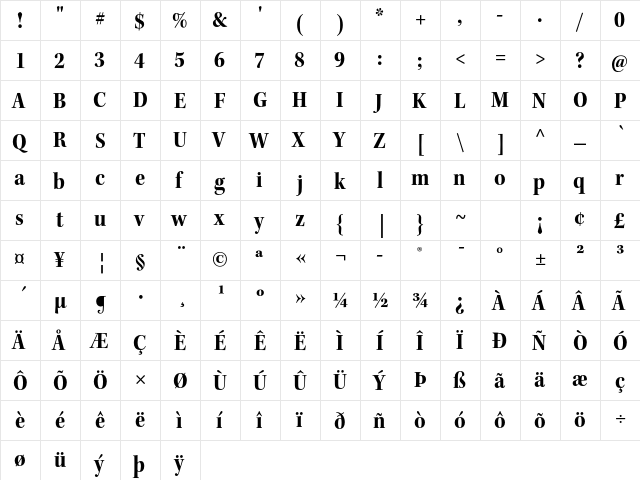
Kepler Std Bold Semicondensed Subhead Font Preview
Kepler Std Bold Semicondensed Subhead
Kepler Std Bold Semicondensed Subhead Font Details
| Style | Bold Semicondensed Subhead |
| Designer | Robert Slimbach |
Design Context for Kepler Std Typeface
Kepler Std offers clean, dependable letterforms without strong stylistic allegiance, making it a practical choice for designers who need flexibility. Its bold stroke weight gives it real presence on the page. Its narrow stance lets it pack a punch even in space-constrained designs.